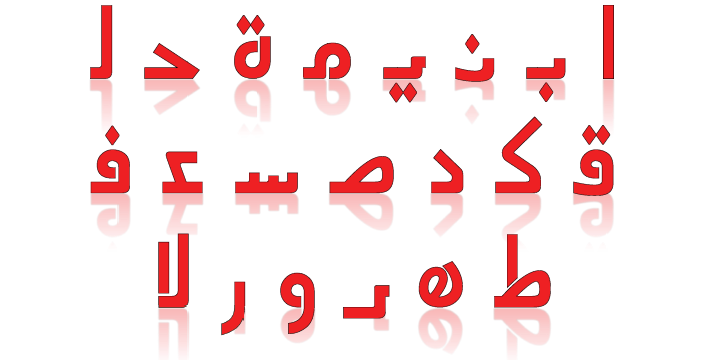
The Arabic Sans Serif Font is a crucial and widely utilized typeface category that combines the clarity and modernity of sans-serif design with the rich aesthetics of the Arabic script. These fonts are essential for contemporary communication in Arabic-speaking contexts, offering excellent readability and a clean, unobtrusive look. Envision this font as the primary text in news websites, adding a professional touch to corporate documents, or providing clear signage in public spaces. It's also incredibly effective for digital interfaces, mobile applications, and educational materials where legibility and a modern aesthetic are paramount. If your project requires clear, modern, and highly readable Arabic text, the Arabic Sans Serif Font is an indispensable tool.
What makes the Arabic Sans Serif Font so exciting? Its significance lies in bridging traditional calligraphic beauty with contemporary design principles. Unlike more ornamental or traditional Arabic typefaces, a good Arabic Sans Serif Font prioritizes clarity and efficiency, making it highly adaptable for diverse media. It allows for a clean, streamlined presentation of Arabic content without sacrificing the inherent elegance of the script. This font communicates a sense of modernity, professionalism, and accessibility, making it ideal for a globalized world where clear and efficient information exchange is key. It ensures that Arabic text is not only beautiful but also highly functional and easy to digest for a wide audience.
The Arabic Sans Serif Font family, like its Latin counterparts, typically offers a comprehensive range of weights and styles to cater to various design needs. You can expect to find options such as Arabic Sans Serif Light, Arabic Sans Serif Regular, Arabic Sans Serif Medium, and Arabic Sans Serif Bold, and sometimes even Black or Thin variations. These different weights are crucial for creating visual hierarchies, emphasizing specific elements, and ensuring versatility in design applications, from subtle body text to impactful headlines. The availability of multiple weights ensures that the Arabic Sans Serif Font can be used cohesively across an entire design project. For your projects, remember to utilize the Arabic Sans Serif Font Free Download for initial testing and ensure proper licensing for all commercial applications.